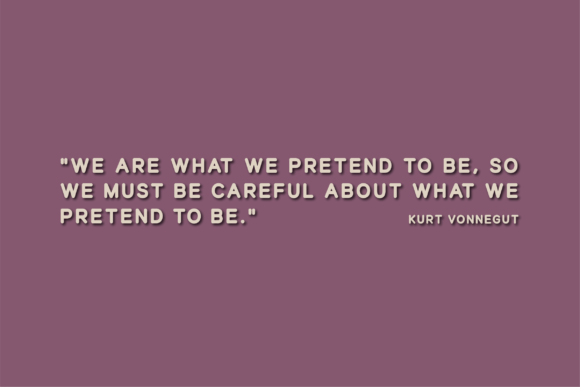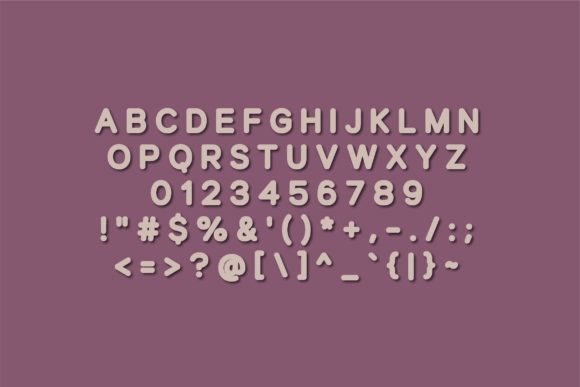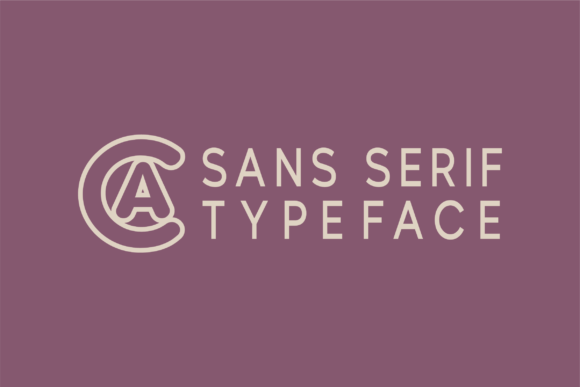
Introduction to Rushtice Font
You’ve spent hours pouring over your creative project, carefully selecting the perfect colors and layout. But something’s still missing – a font that elevates your design to the next level. That’s where the Rushtice Font comes in – a high-quality, modern sans serif font that’s sure to bring your ideas to life.
| 👤 Author | A Christie |
Whether you’re a seasoned designer or just starting out, the Rushtice Font is a valuable addition to your design resource library. Its clean lines and transparent background make it perfect for a wide range of applications, from logos and invitations to advertisements and magazine layouts. And the best part? You can download it for free, making it an accessible and essential tool for any creative project.
Key Features of Rushtice Font
- High-quality design: The Rushtice Font is designed with precision and care to provide a unique and visually appealing look for any creative project.
- Transparent background: The Rushtice Font features a transparent background, allowing users to easily place the font over any image or design without any distractions.
- High-resolution design: The Rushtice Font is designed at a high resolution, ensuring that it looks crisp and clear even when scaled up or down.
- Unique characteristics: The Rushtice Font features a unique blend of modern and vintage elements, making it perfect for designers looking for a one-of-a-kind look.
Honest Review: Rushtice Font
I recently had the chance to work with the Rushtice Font, and I must say, it’s been a game-changer for my creative projects. This high-quality font is perfect for designers looking to add a unique touch to their designs.
- ✨ The Rushtice Font is highly versatile and can be used for a variety of design projects, from logos to typography-based designs.
- ✨ The transparent background option allows for seamless integration with other design elements.
While the Rushtice Font is an excellent addition to any designer’s toolkit, there are a few limitations to keep in mind:
- ⚠️ The font’s unique style may not be to everyone’s taste, so be sure to test it out in your design before committing.
Overall, I’m thoroughly impressed with the Rushtice Font. Its unique style and high-quality design make it an excellent choice for designers looking to add a creative twist to their projects. Whether you’re working on a personal or commercial project, the Rushtice Font is definitely worth checking out.
For the best results, use Rushtice Font in combination with a clear and concise message. Experiment with different font sizes and colors to create a visually appealing design.
Rushtice Font is ideal for a variety of design projects, including logos, business cards, and social media graphics. Its high-quality design and transparent background make it a versatile design resource for any creative project.